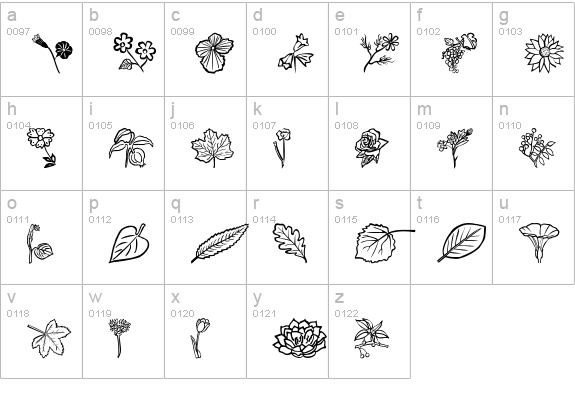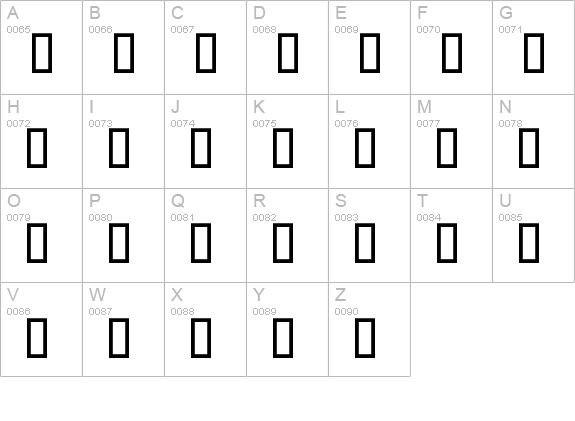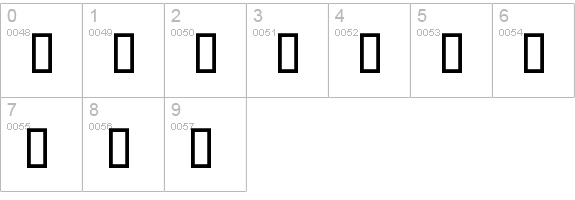
Flower Show Font Details
Flower Show font is a charming and elegant typeface that exudes a whimsical and playful vibe, making it perfect for a variety of creative projects. With its intricate floral-inspired design, this font adds a touch of beauty and sophistication to any design piece. The graceful curves and delicate details of Flower Show font make it a standout choice for invitations, greeting cards, branding, and more. The best part? Flower Show font is completely free to download at FontsMarket.com. This means you can easily add this stunning font to your collection without any cost. Don't miss out on the opportunity to enhance your designs with the exquisite beauty of Flower Show font, available for free download now.